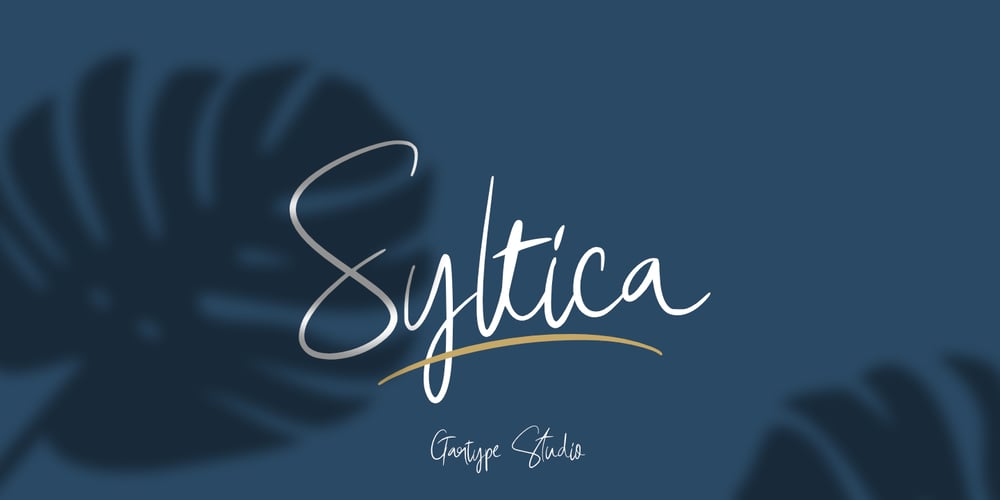
Syltica GT Font Family was designed by Gumilang Anggara Ruslan and published by Gartype Studio. Syltica GT contains 2 styles and family package options. A good sign certainly requires a good identity to be a good sign, as well as your signature. Of course, with our font named Syltica GT, you can make your signature or watermark on the work or product that you issue interesting and of course cool with the addition of swashes.Syltica GT is very suitable to be applied to media such as books, signatures, logos, logotypes, ads on digital or printed products too, or whatever it can complement your needs